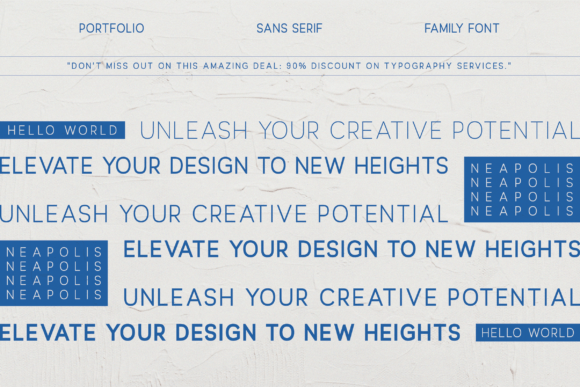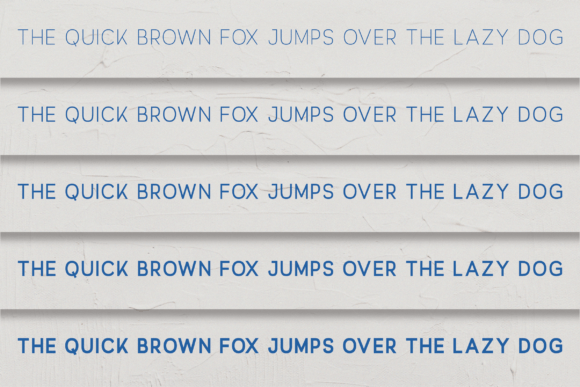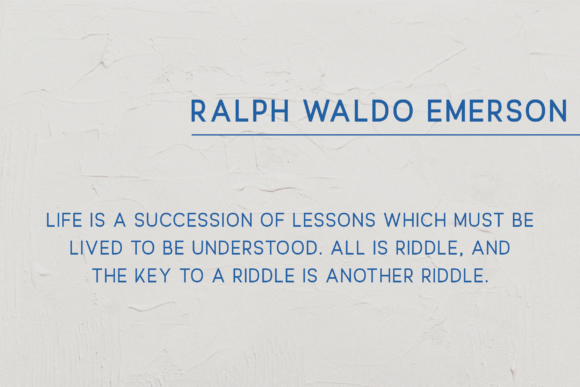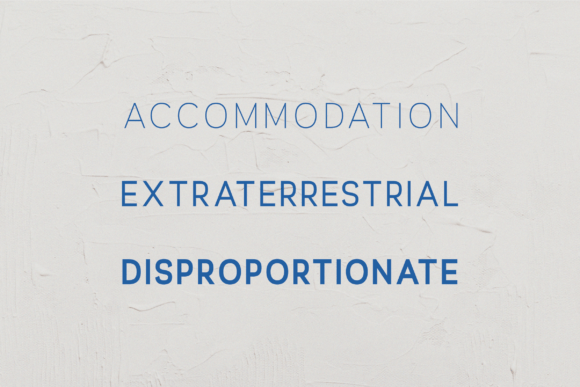
Introduction to Neapolis Font Font
Fonts play a crucial role in design, and the Neapolis Font font is a typeface that brings both character and versatility to any project. Whether you’re working on a branding project, a website, or a print design, the Neapolis Font font offers a unique style that can elevate your work.
Introducing Neapolis Font Family — A Masterpiece of Elegance and Minimalism Meet Neapolis Font, a meticulously crafted sans-serif font family that redefines modern design.
Featuring 5 distinct weights, it offers unparalleled versatility, seamlessly adapting to projects ranging from magazines and logos to film posters and beyond Designed with precision and an eye for detail, Neapolis Font strikes the perfect balance between sophistication and simplicity, allowing your creations to exude timeless charm and contemporary luxury.
Key Features of Neapolis Font Font
Why Choose Neapolis Font Font?
The Neapolis Font font is more than just a typeface – it’s a design tool that helps you communicate your message with style and clarity. Its unique character set and versatile design make it suitable for a wide range of applications, from elegant invitations to bold headlines.
With its carefully crafted letterforms and balanced proportions, the Neapolis Font font ensures readability and visual appeal across all mediums.
What makes Neapolis Font font special?
The Neapolis Font font stands out with its unique design, exceptional readability, and versatility across various design applications.